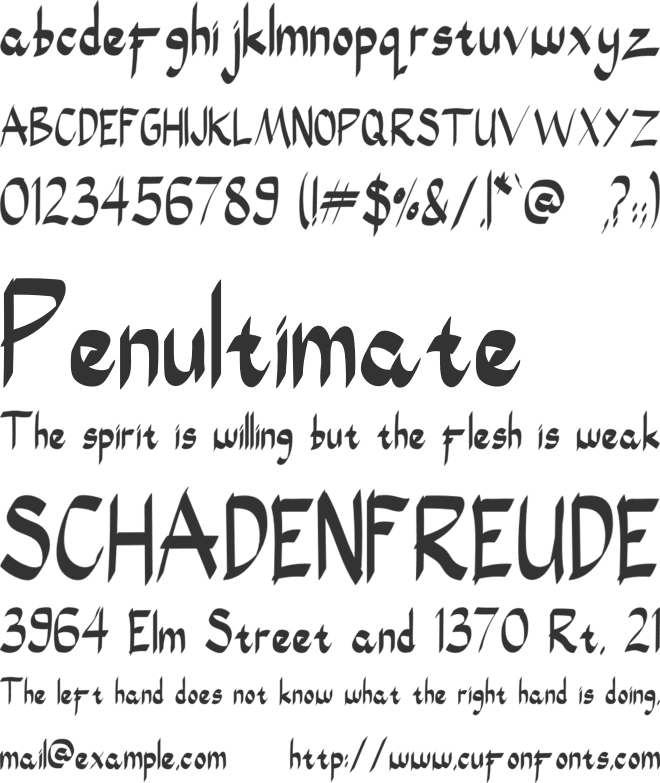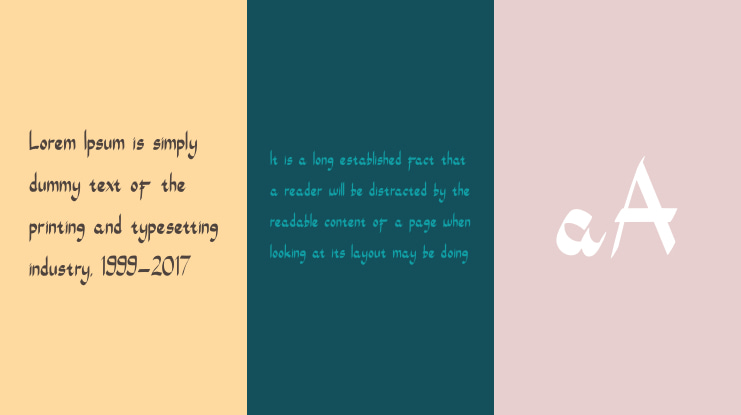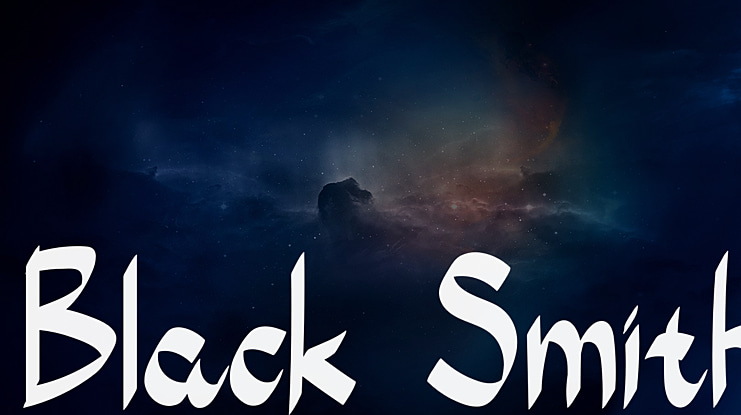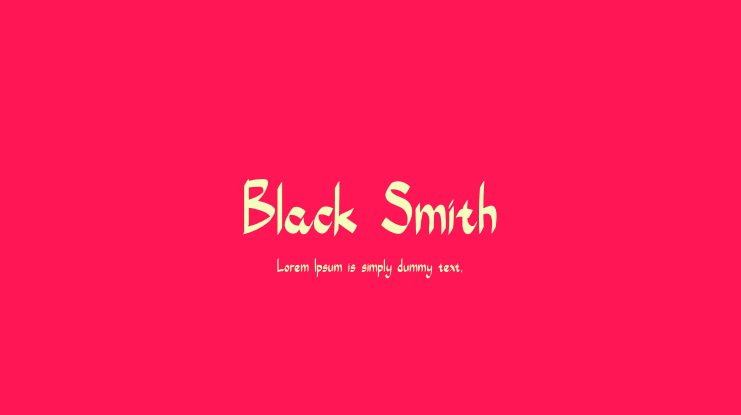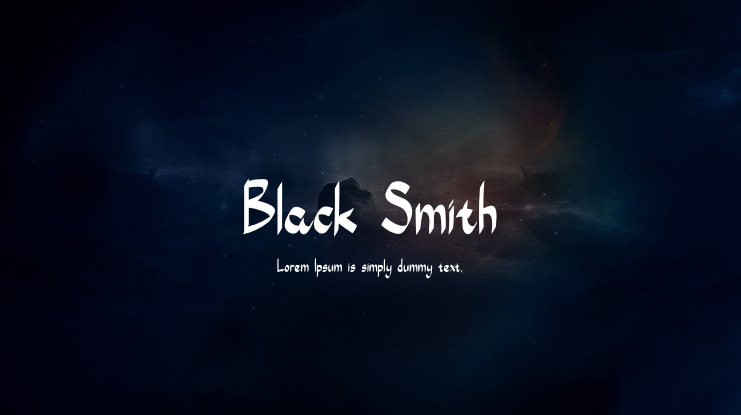
Black Smith designed in a calligraphy pen style and with a light shape.
This font is perfect for use as poster designs, branding, logos, apparel, card, etc.
Powerful for custom logo.
Features:
-Upper and Lowercase
-Numerals & Symbols
-Multi Linguals Support
-Ornaments
This font is perfect for your work design.
- This font is PUA encoded which means you can access all of the glyps and alternate with ease.